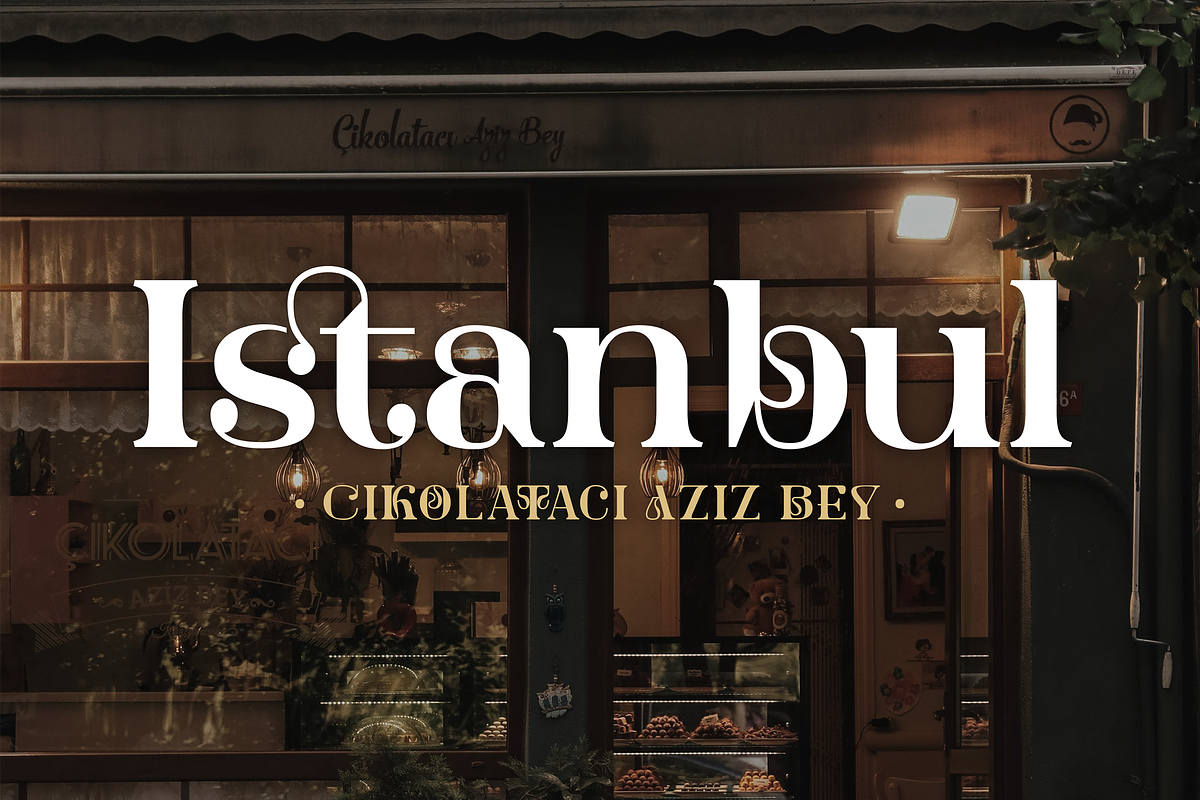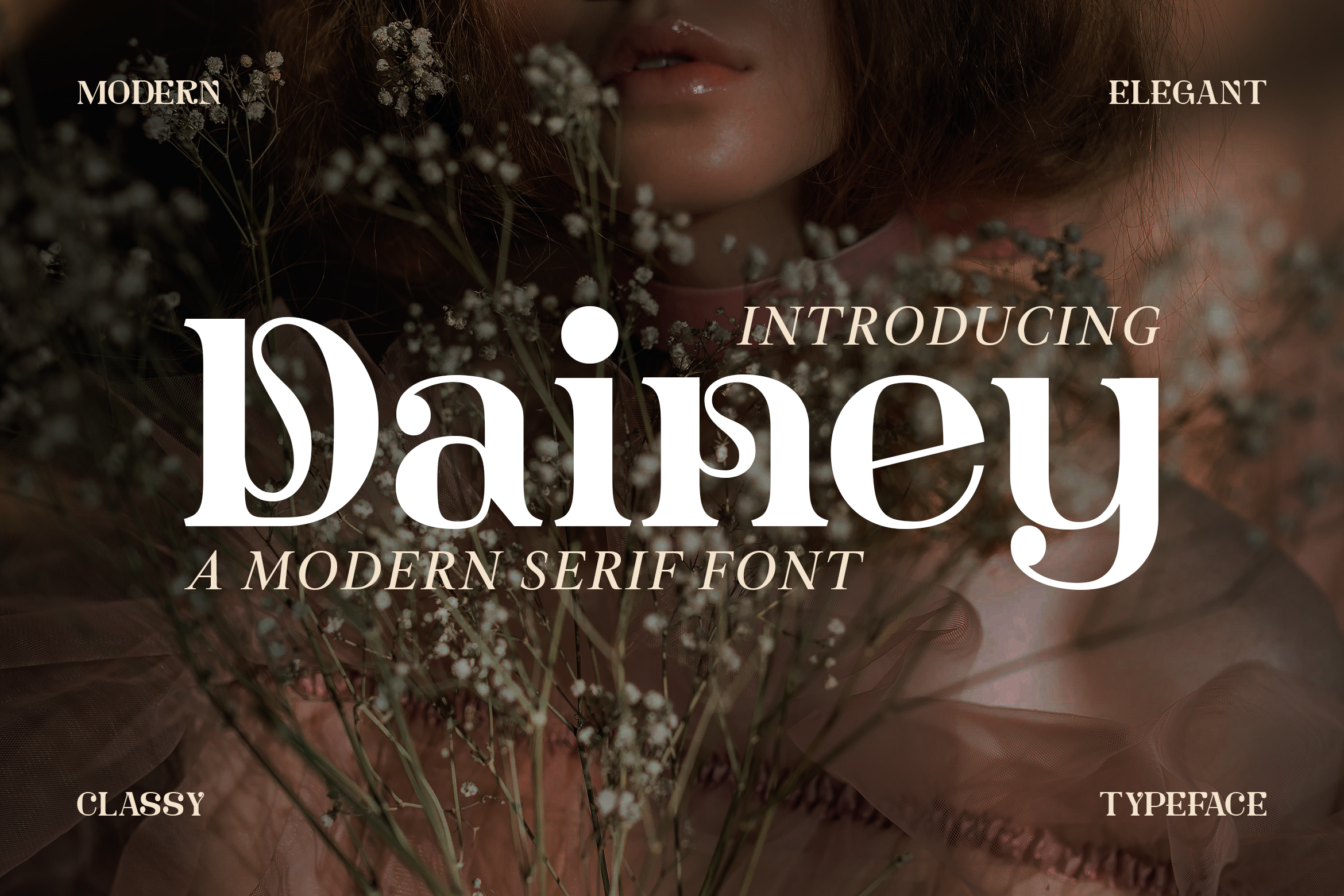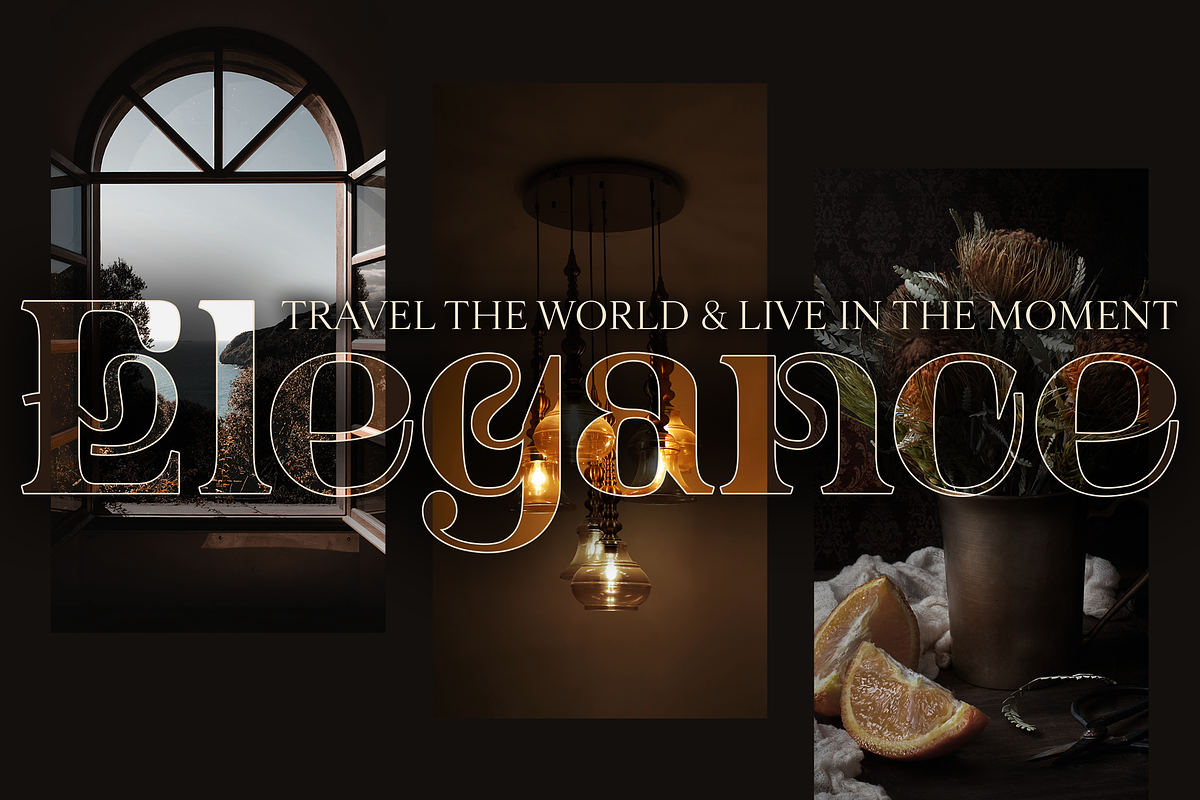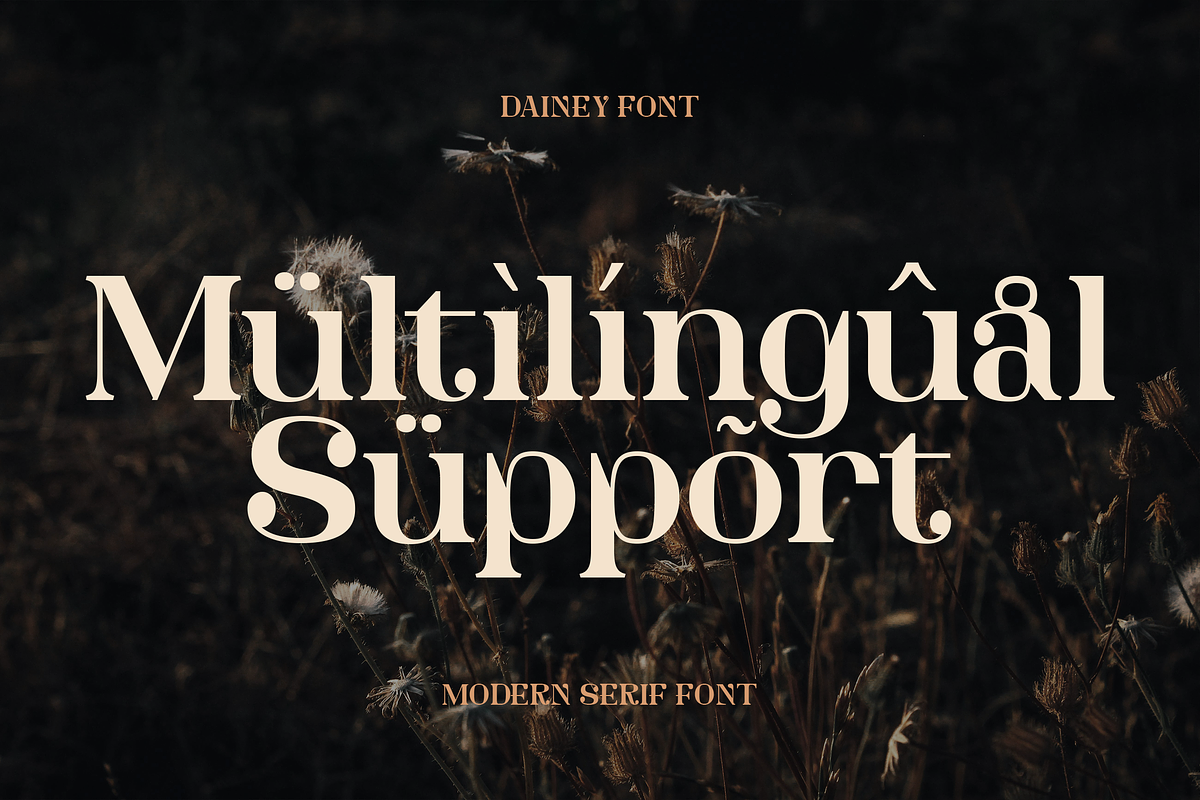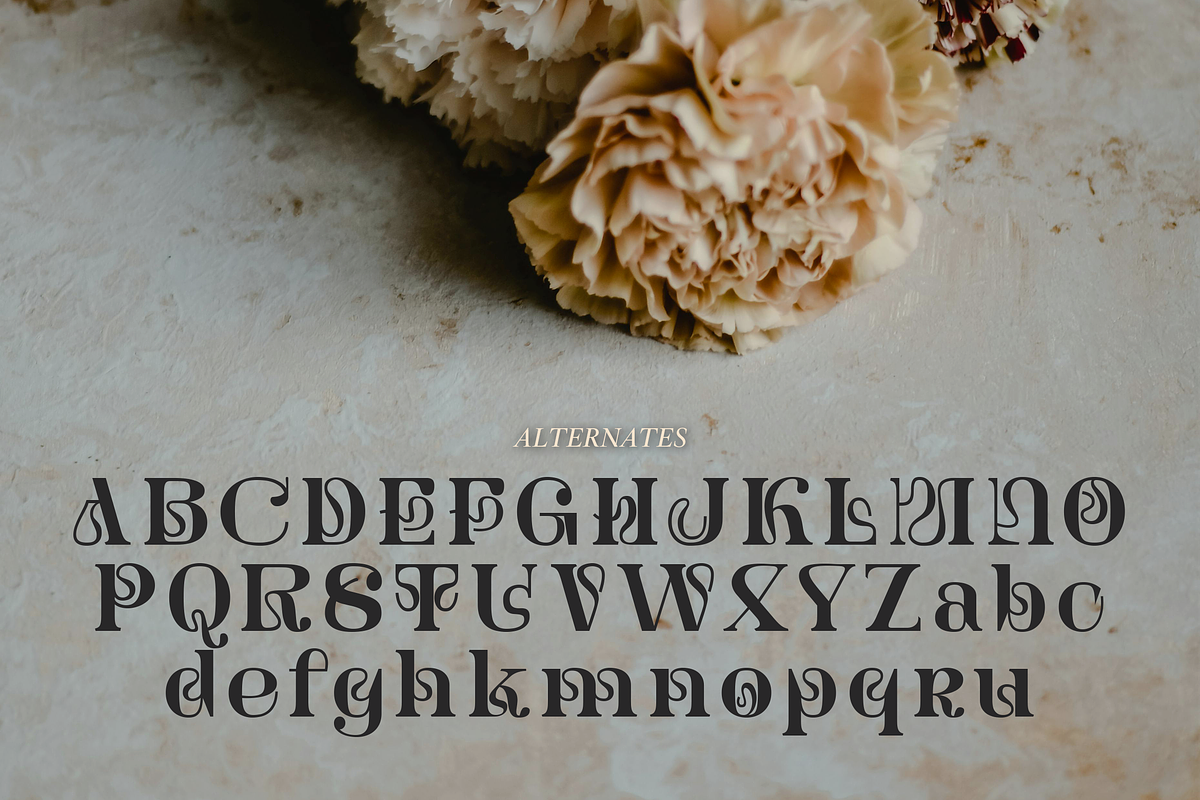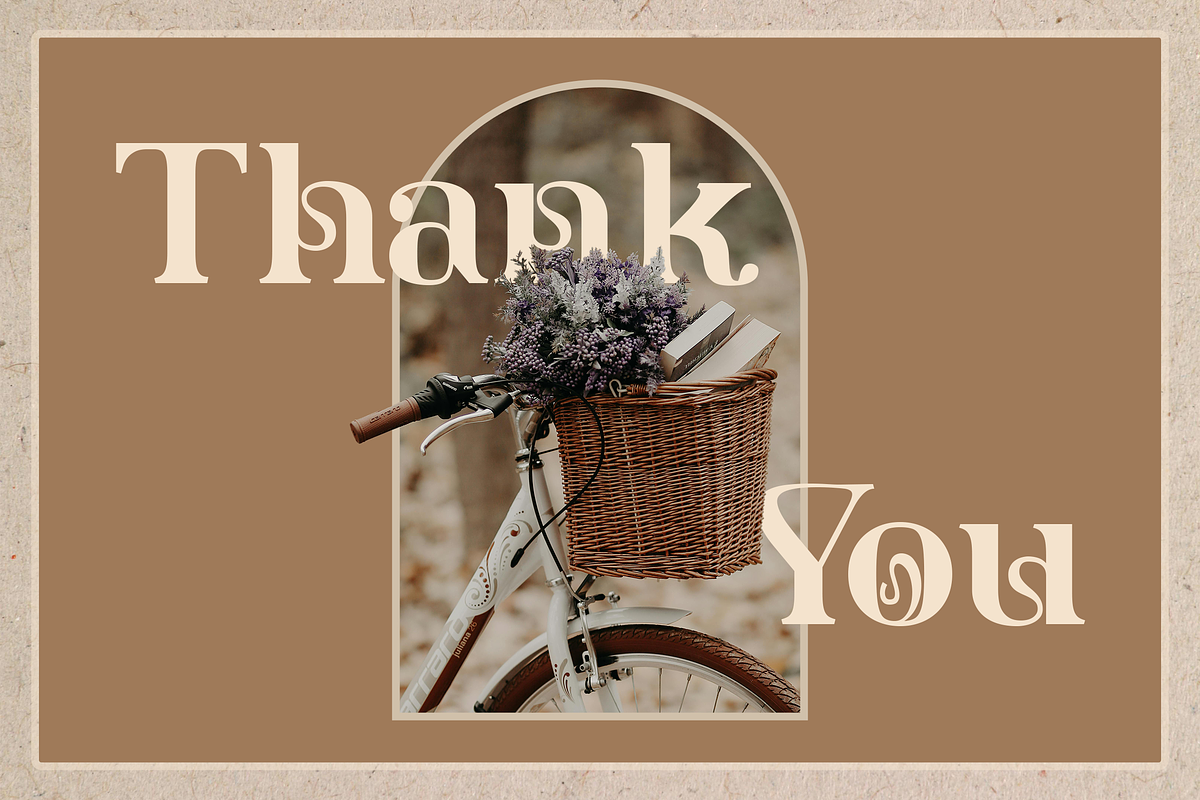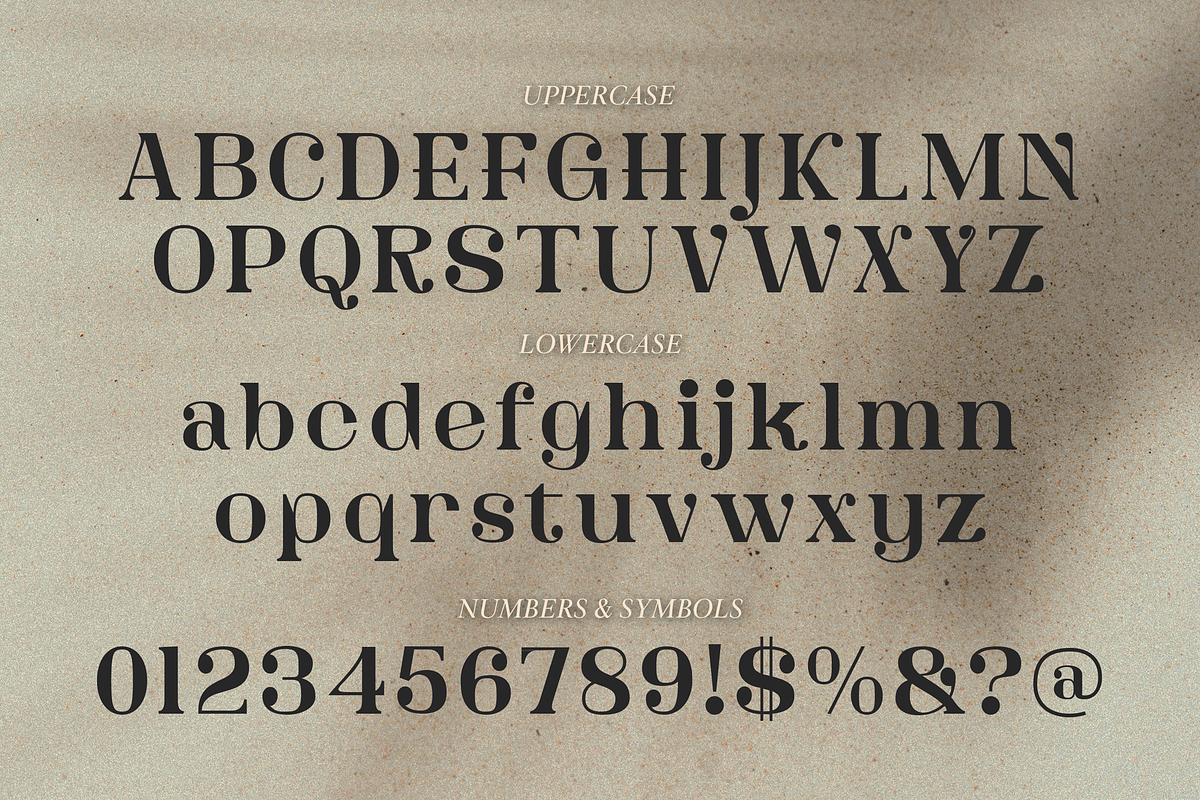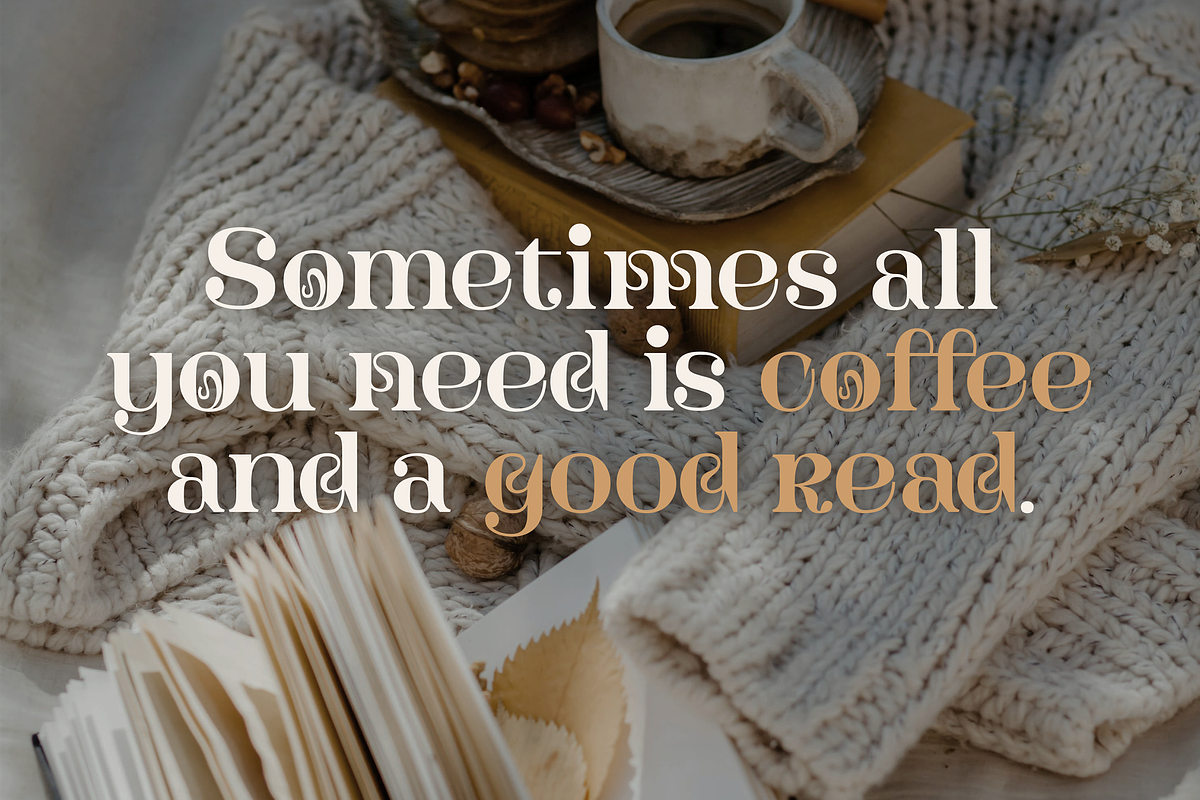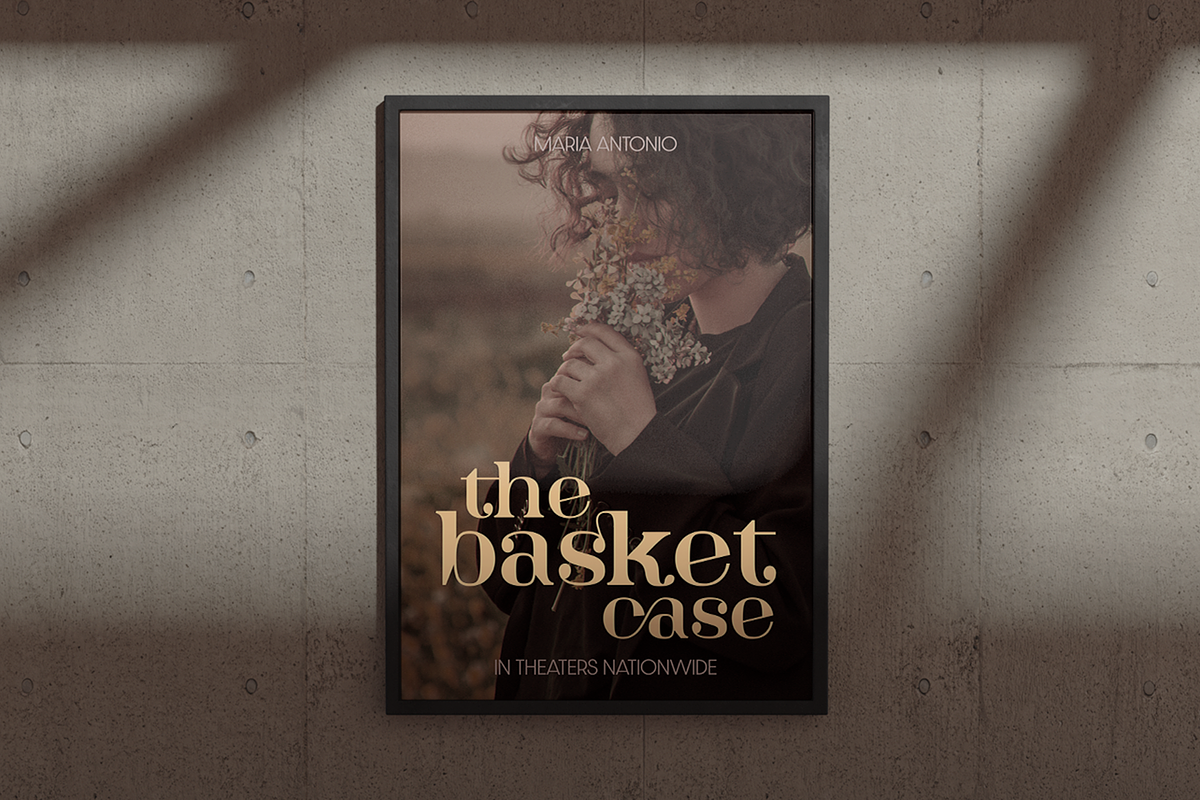
Dainey Modern Serif Font
Introducing Dainey – A Modern Serif Font.
Timeless yet versatile, Dainey is the perfect choice for your creative projects. Use it for your website, social media branding, banners, printed invitations, and so much more!
Make an impression that lasts with the refined elegance of Dainey’s modern serif charm.
- Multilingual & Ligature Support
- Full sets of Punctuation and Numerals